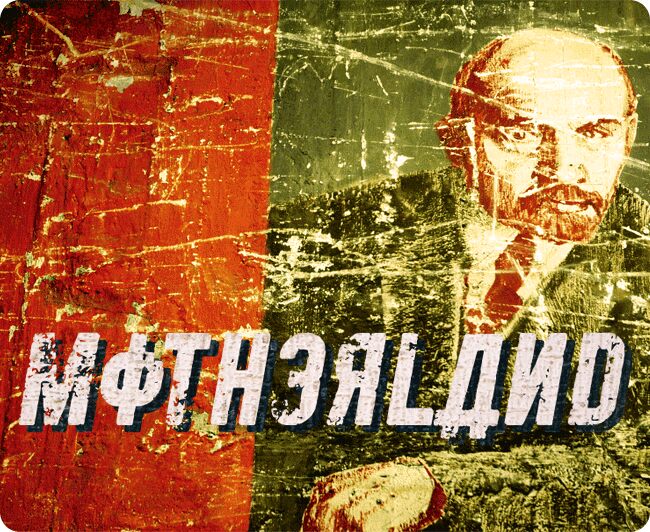
Motherland, a captivating font designed by Fred of 28fonts, embodies the gritty, weathered essence of Russian aesthetics. This condensed, eroded typeface exudes a sense of rugged resilience, with each letter bearing the marks of time and the elements. Its striking visual impact captivates the viewer, evoking emotions of strength, determination, and a connection to the land.
Motherland's unique character lends itself seamlessly to a variety of design applications, from editorial spreads and book covers to packaging and branding initiatives. Its condensed form and robust personality make it an ideal choice for attention-grabbing headlines, impactful posters, and bold, memorable typographic compositions.
Motherland